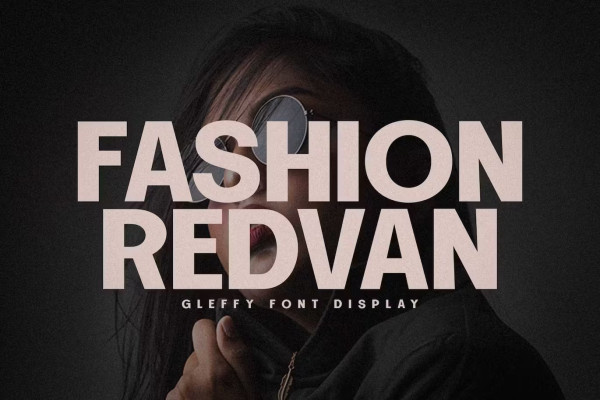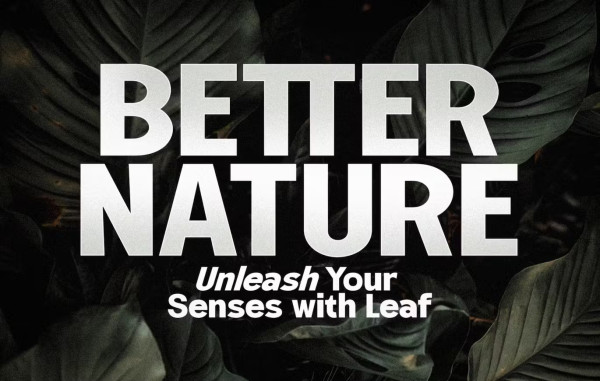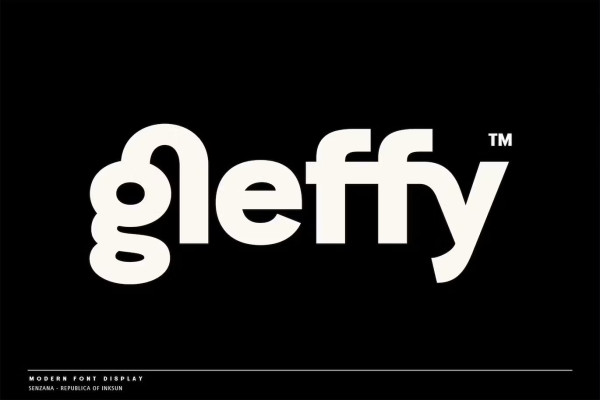
Gleffy Font
Gleffy Font, a typographic masterpiece that strikes the perfect balance between elegance and versatility. With its exquisite curves, meticulous detailing, and timeless appeal, it is the ultimate choice for designers, creatives, and typographers seeking to make a lasting impression.
Here’s what sets Gleffy Font, apart:
Timeless Elegance: Gleffy Font exudes an air of sophistication with its refined letterforms and graceful strokes. Each character is carefully crafted to convey a sense of timeless beauty, making it ideal for a wide range of design projects that require a touch of class and elegance.
Versatility Redefined: From high-end branding to editorial design, Gleffy Font adapts effortlessly to various design applications. Its versatility shines through in both headline and body text, ensuring seamless integration across different media platforms, including print, web, and mobile.
OpenType Features: To enhance your creative possibilities, it is equipped with a range of OpenType features. Dive into a world of typographic exploration with ligatures and stylistic sets, enabling you to create truly unique and personalized designs.
Impeccable Readability: While Gleffy Font exudes artistic flair, it never compromises on legibility. Its well-balanced letterforms and carefully considered spacing ensure effortless reading, providing a smooth and enjoyable reading experience for your audience.
Meticulous Craftsmanship: It is the result of meticulous craftsmanship, attention to detail, and a passion for typography. Each glyph is honed with precision, guaranteeing flawless execution and consistent quality in every design project.
Experience the allure of Gleffy Font and unlock a world of design possibilities. Whether you’re crafting elegant invitations, designing luxurious branding materials, or bringing your editorial layouts to life, it will be your trusted companion, ensuring your designs stand out from the crowd.